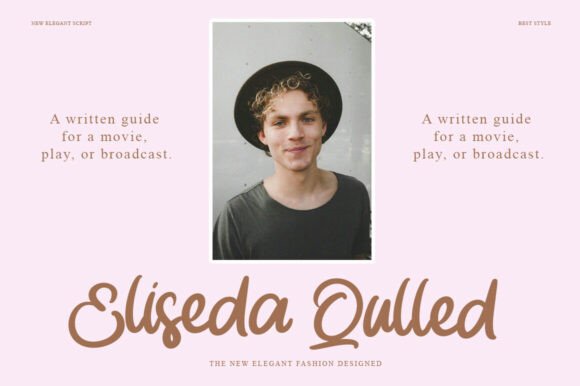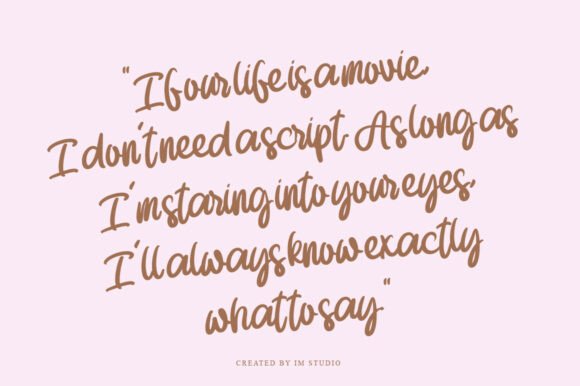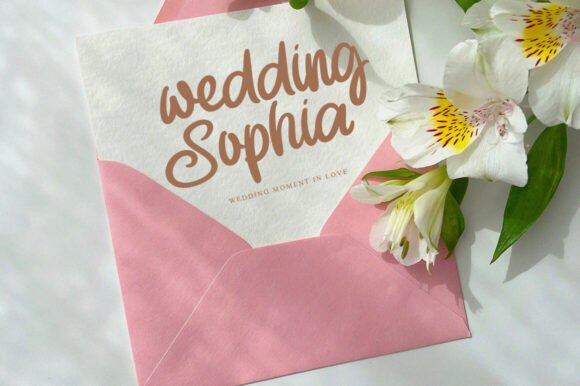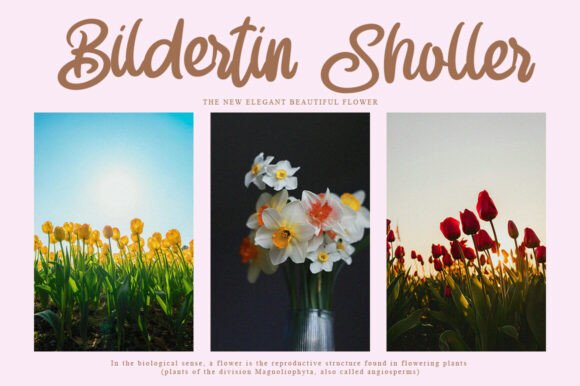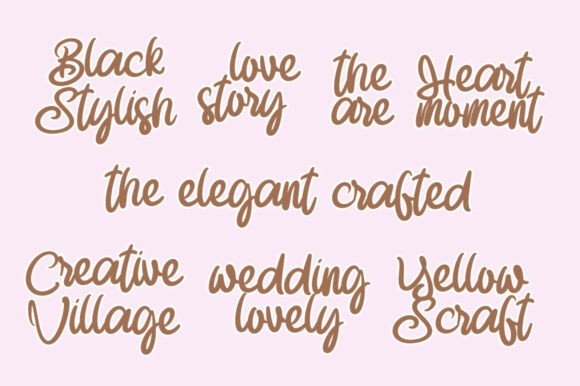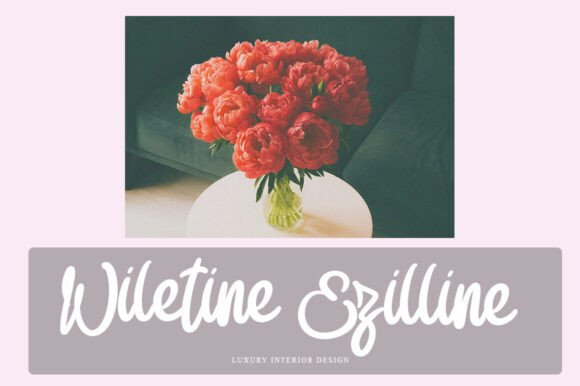
Bophia Stylish Font: Elevate Your Designs with Elegance and Sophistication
In the world of design, typography plays a crucial role in conveying the tone and personality of a brand or project. A stylish font can make all the difference in creating a lasting impression on your audience. If you’re a designer or crafter looking for a font that exudes softness and elegance, look no further than Bophia Stylish Font. In this article, we’ll explore the features and benefits of Bophia Stylish Font and how it can elevate your design projects to new heights.
Introducing Bophia Stylish Font
Bophia Stylish Font is a beautiful, feminine font that is perfect for designers and crafters who want to add a touch of elegance to their work. With its graceful strokes and soft curves, this font is sure to capture the attention of your audience and leave a lasting impression. Whether you’re working on a branding project, creating wedding designs, or crafting invitations, Bophia Stylish Font is the perfect choice.
Key Features of Bophia Stylish Font
- Feminine Touch: Bophia Stylish Font has a distinctly feminine touch that makes it perfect for designs that require a soft and elegant look.
- Graceful Strokes: The font features graceful strokes that flow smoothly, creating a beautiful and harmonious visual effect.
- Versatile: Bophia Stylish Font is versatile and can be used for a wide range of design projects, including branding, titles, wedding designs, invitations, signs, logos, labels, and more.
- Elegant: The font exudes elegance and sophistication, making it perfect for designers and crafters who want to create high-end designs.
Benefits of Using Bophia Stylish Font
Using Bophia Stylish Font in your design projects offers numerous benefits. Here are a few:
- Stand Out: With Bophia Stylish Font, you can create designs that stand out from the crowd and capture the attention of your audience.
- Professional Look: The font gives your designs a professional and polished look, making them perfect for high-end clients or personal projects.
- Easy to Read: Bophia Stylish Font is easy to read, even in small sizes, making it perfect for designs that require a lot of text.
- Customizable: The font can be customized to fit your design needs, allowing you to experiment with different colors, sizes, and styles.
Design Ideas Using Bophia Stylish Font
Bophia Stylish Font is a versatile font that can be used for a wide range of design projects. Here are a few ideas to get you started:
- Wedding Designs: Use Bophia Stylish Font to create beautiful wedding invitations, programs, and decorations.
- Branding: Create a professional and elegant brand identity with Bophia Stylish Font.
- Signs and Labels: Use the font to create eye-catching signs and labels for your business or personal projects.
- Logos: Create a stunning logo for your business or personal brand with Bophia Stylish Font.
In conclusion, Bophia Stylish Font is a beautiful and elegant font that can elevate your design projects to new heights. With its feminine touch, graceful strokes, and versatility, this font is perfect for designers and crafters who want to create high-end designs. Whether you’re working on a branding project, creating wedding designs, or crafting invitations, Bophia Stylish Font is the perfect choice. So why wait? Download Bophia Stylish Font today and start creating stunning designs that capture the attention of your audience.
Black Stylish is a font that exudes softness and elegance. With graceful strokes and a feminine touch, this font will elevate any design project to the highest level, be it branding, titles, wedding designs, invitations, signs, logos, labels, and more!